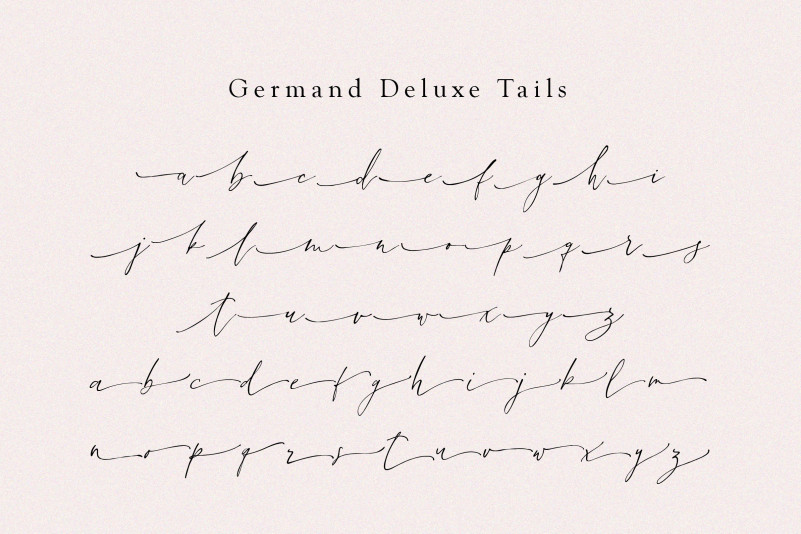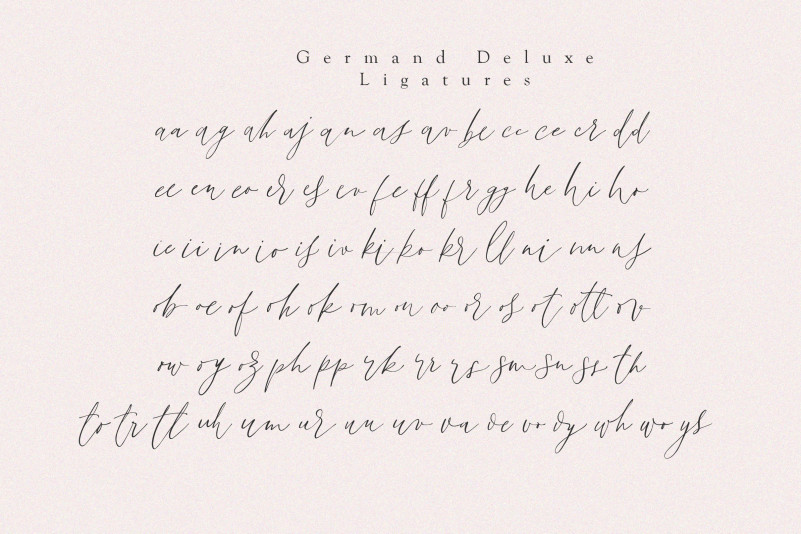
Germand Duluxe Font
Germand Duluxe Script Font is a lavish and opulent design. Germand Deluxe’s flowing, ornate letters and intricate details create a sense of elegance and luxury that is perfect for adding a touch of sophistication to your branding or stationery. With its refined and sumptuous style, this font is sure to impress and inspire. This font is PUA encoded which means you can access all glyphs and swashes effortlessly!